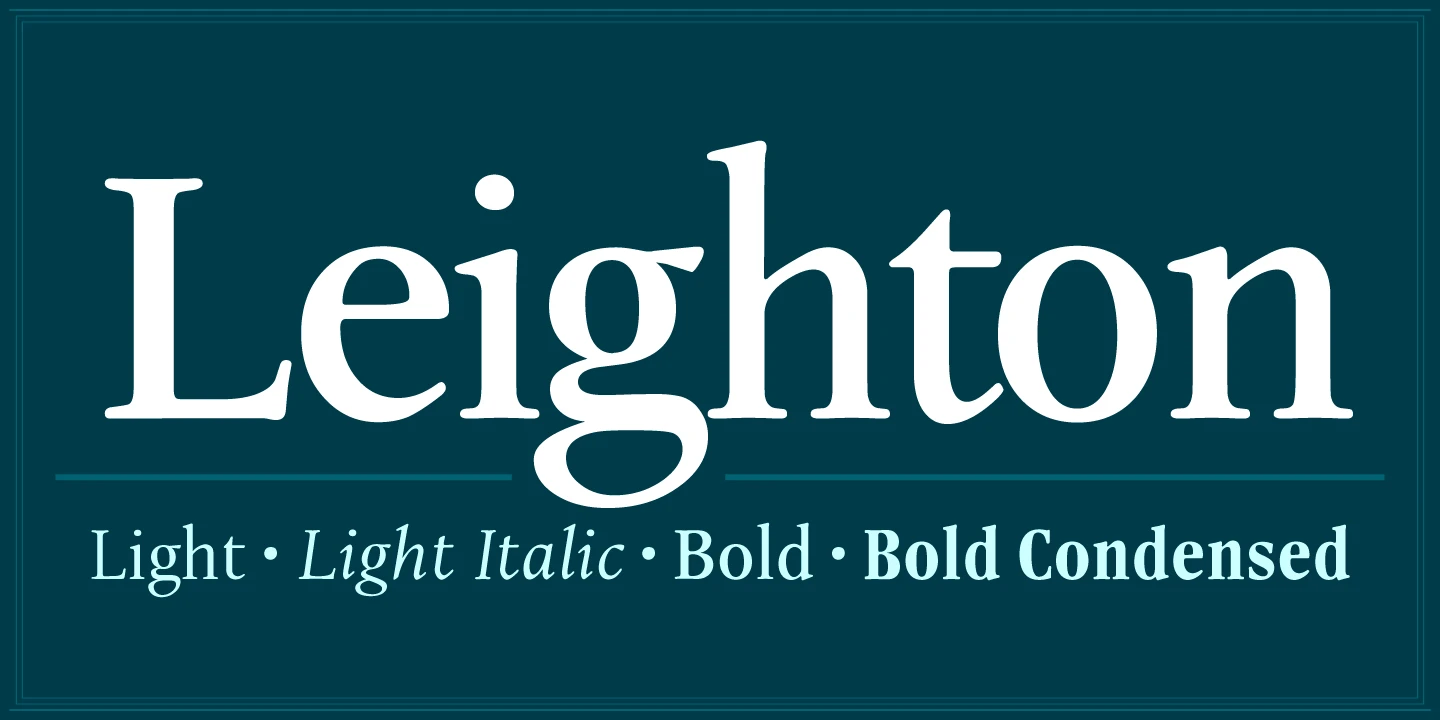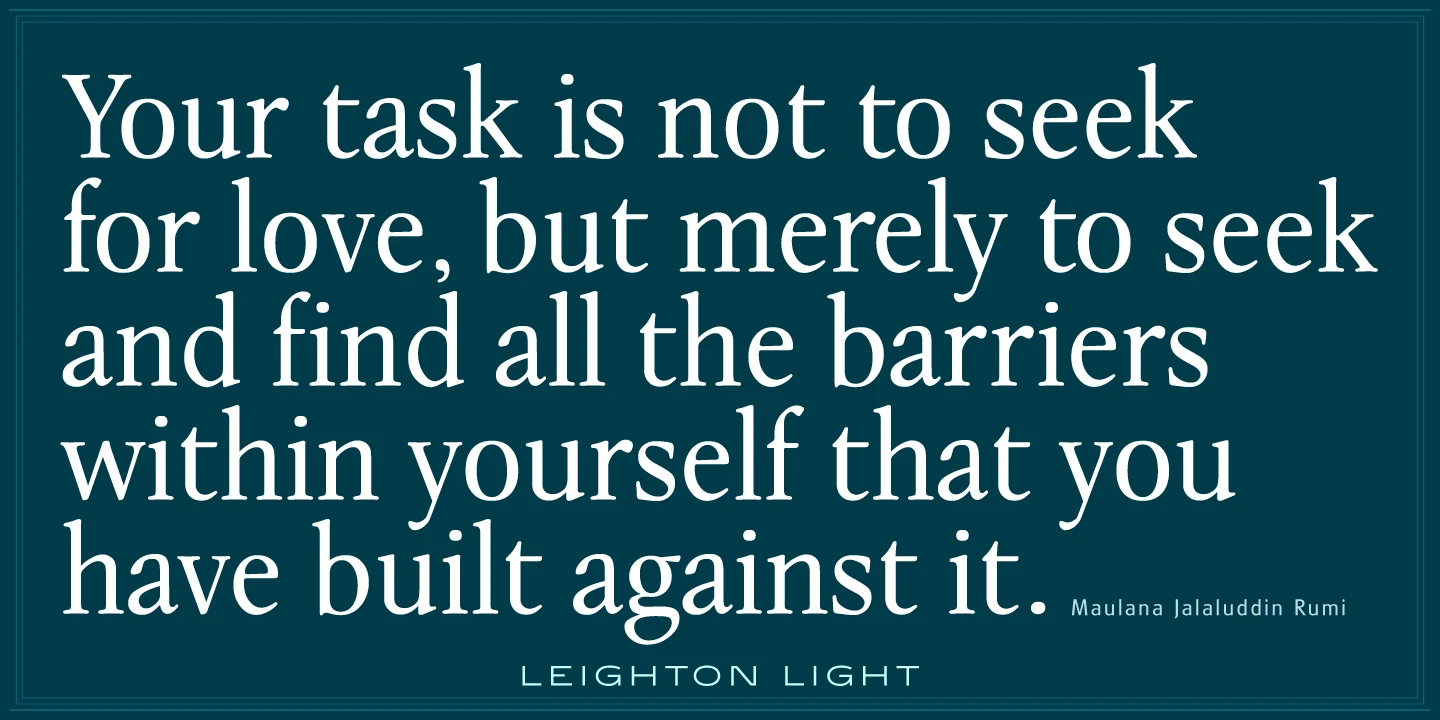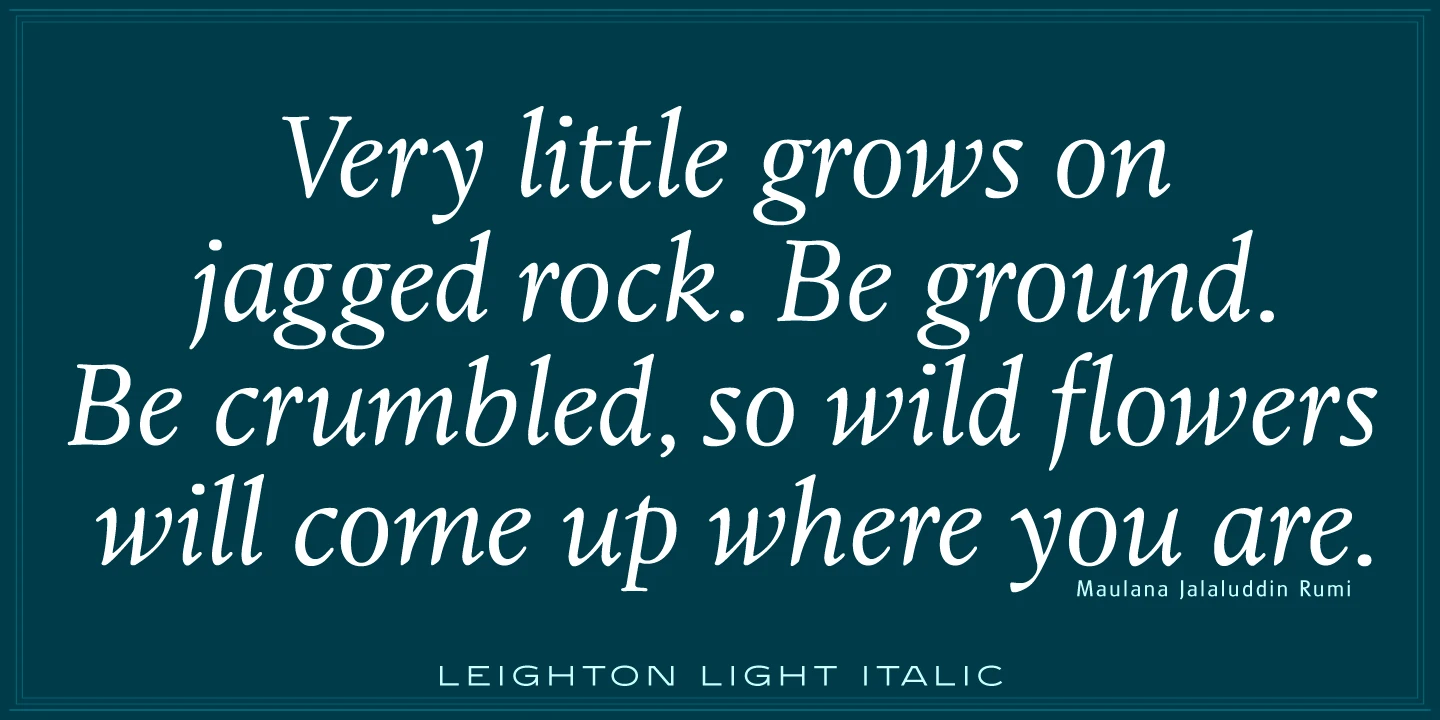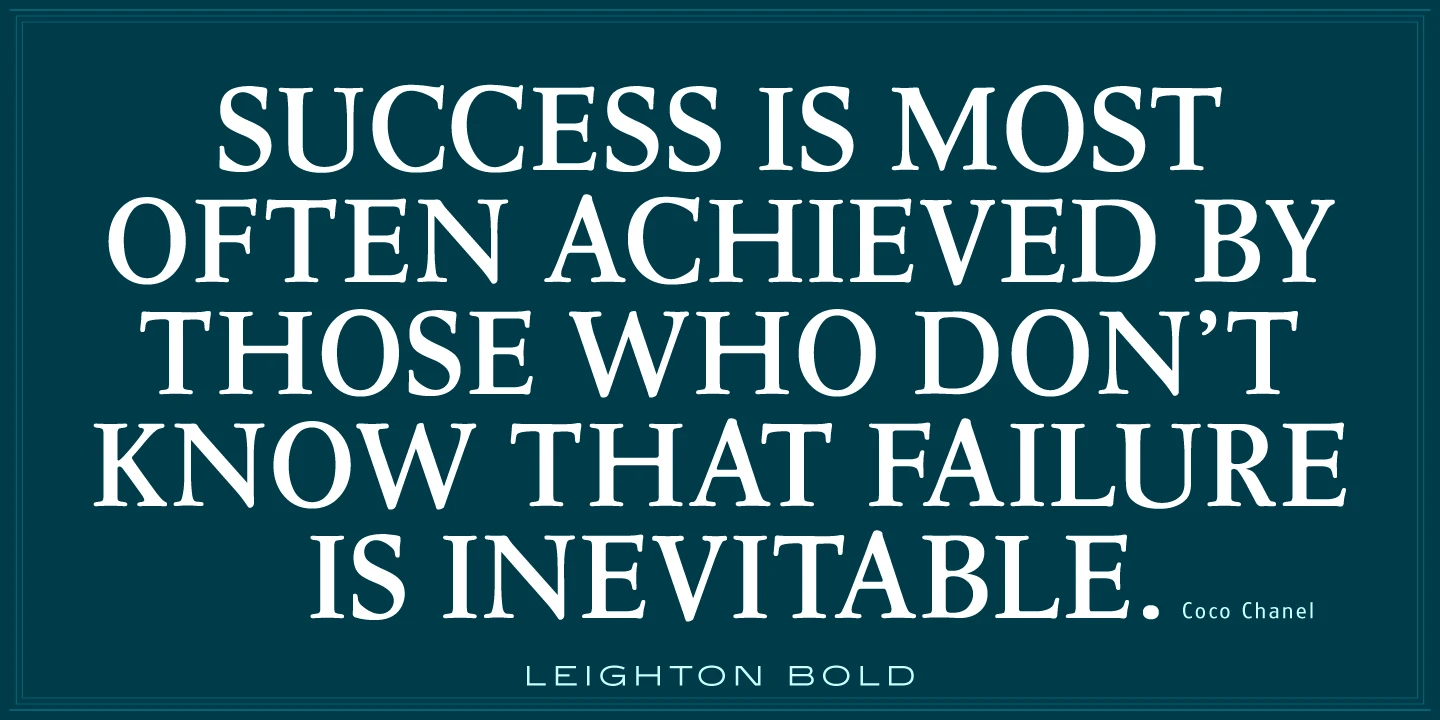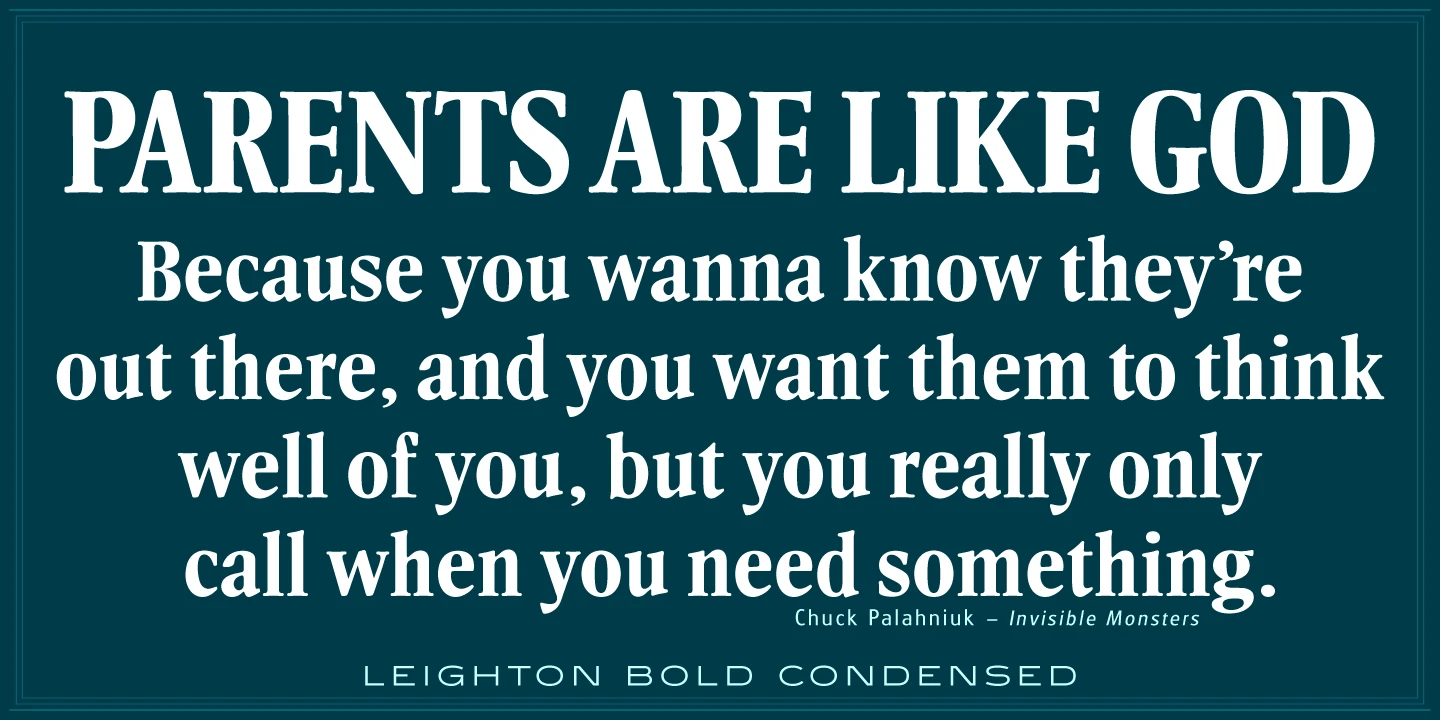
Leighton Font Family
Leighton is a four-weight serif font family that was created in 1993 by Paul Hickson (P&P Hickson) and Steve Jackaman (ITF) exclusively for ITF’s Red Rooster Collection. Its designs are loosely based on the typeface Lectura, which was designed in 1966 by Dick Dooijes for the Amsterdam Foundry. Leighton is a conservative, Dutch-style serif font. It is ideal for upscale corporate projects and excels at any size.